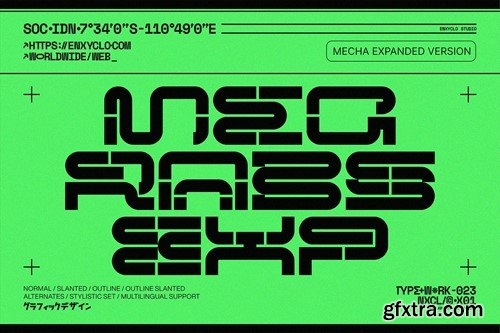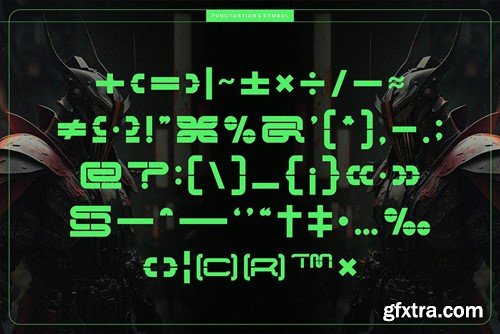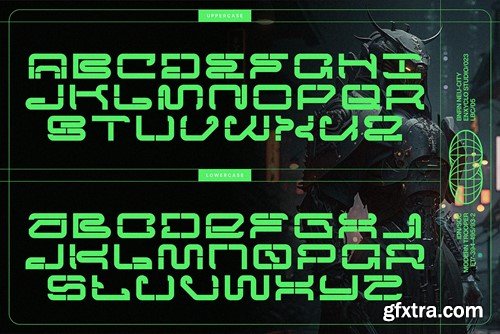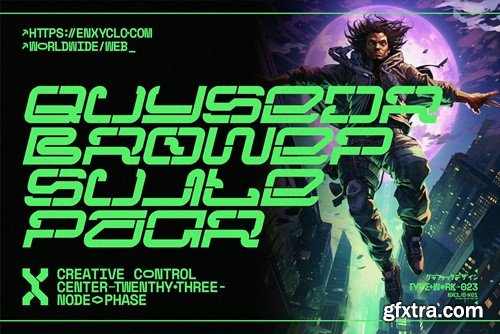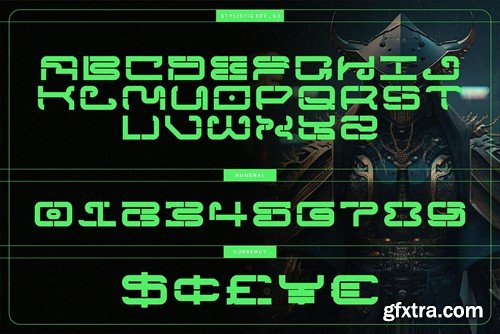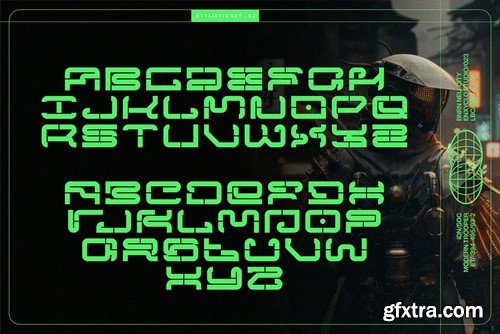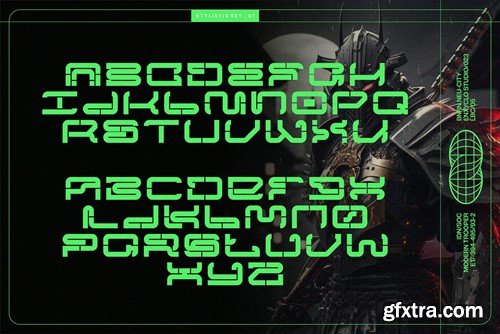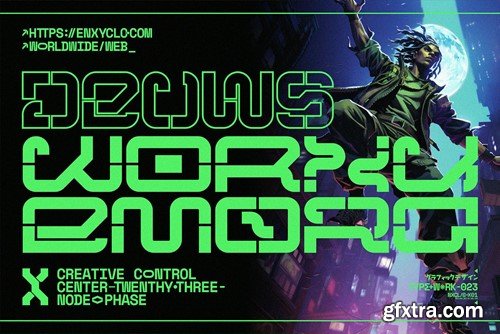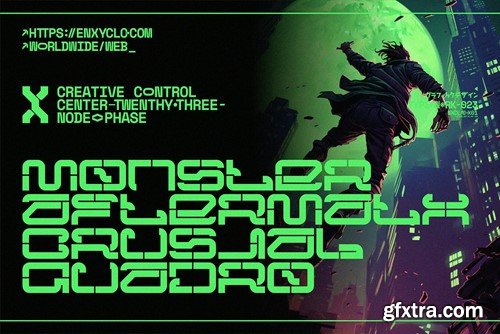
NCL Megrabs Mecha Expanded - 黑体未来主义字体 54B3SRD
NCL Megrabs Mecha Expanded - Bold Futuristic Font 54B3SRD
NCL Megrabs Mecha Expanded - Bold Futuristic Font
NCL MEGRABS MECHA EXPANDED is the mecha expanded version of the font family. It is the ultimate modern bold futuristic y2k cyberpunk mecha typeface inspired by industrial and mecha-robotics. This stunning and powerful font cuts through the noise, bringing a bold industrial edge to your designs. With its sleek and futuristic design, this font is perfect for any futuristic or cyberpunk design, album artwork, posters, headlines, and logotypes. Add this font to your design toolkit today and unleash the cutting-edge style of this versatile font.
FEATURES
• 4 Styles: Regular, Slanted, Outline, and Outline Slanted
• Contains 468 Glyphs for Each Style
• Stylistic Set 1-3
• Numeral, Punctuation & Symbols
• Multilingual Support